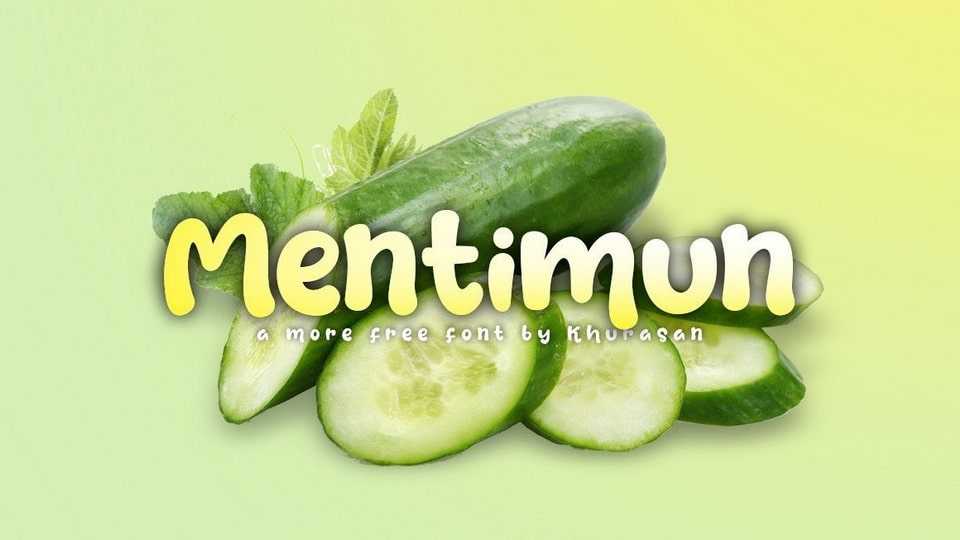
Download Mentimun font, a funny and cute handwritten typeface. Mentimun is perfect for posters, logos, magazines, book covers, banners, and other lovely designs!